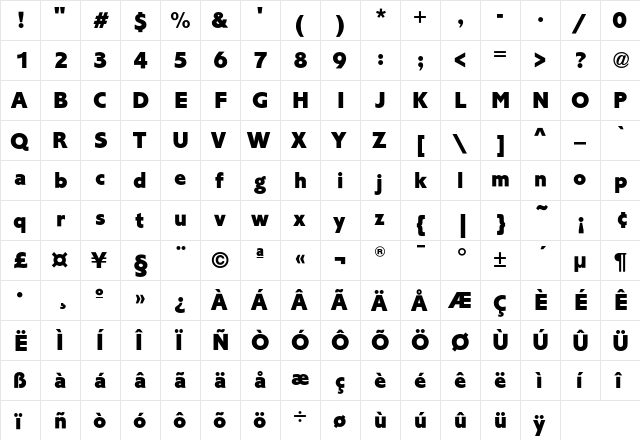
CorinthianEF ExtraBold Font Preview
CorinthianEF ExtraBold
Design Context for CorinthianEF Typeface
CorinthianEF is a composed and adaptable typeface that performs quietly and consistently across a wide range of design contexts. Its bold stroke weight gives it real presence on the page.